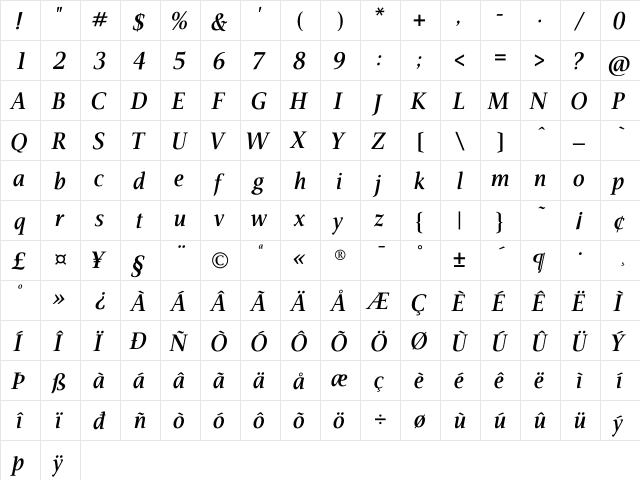
AIVeritas SemiBoldItalic
Design Context for AIVeritas Typeface
AIVeritas is a composed and adaptable typeface that performs quietly and consistently across a wide range of design contexts. Its italic angle brings a sense of urgency and motion to the letterforms. Its bold stroke weight gives it real presence on the page.
Pro Tip: Use AIVeritas for emphasis, pull quotes, and subheadings where its slanted energy can add rhythm to the layout.